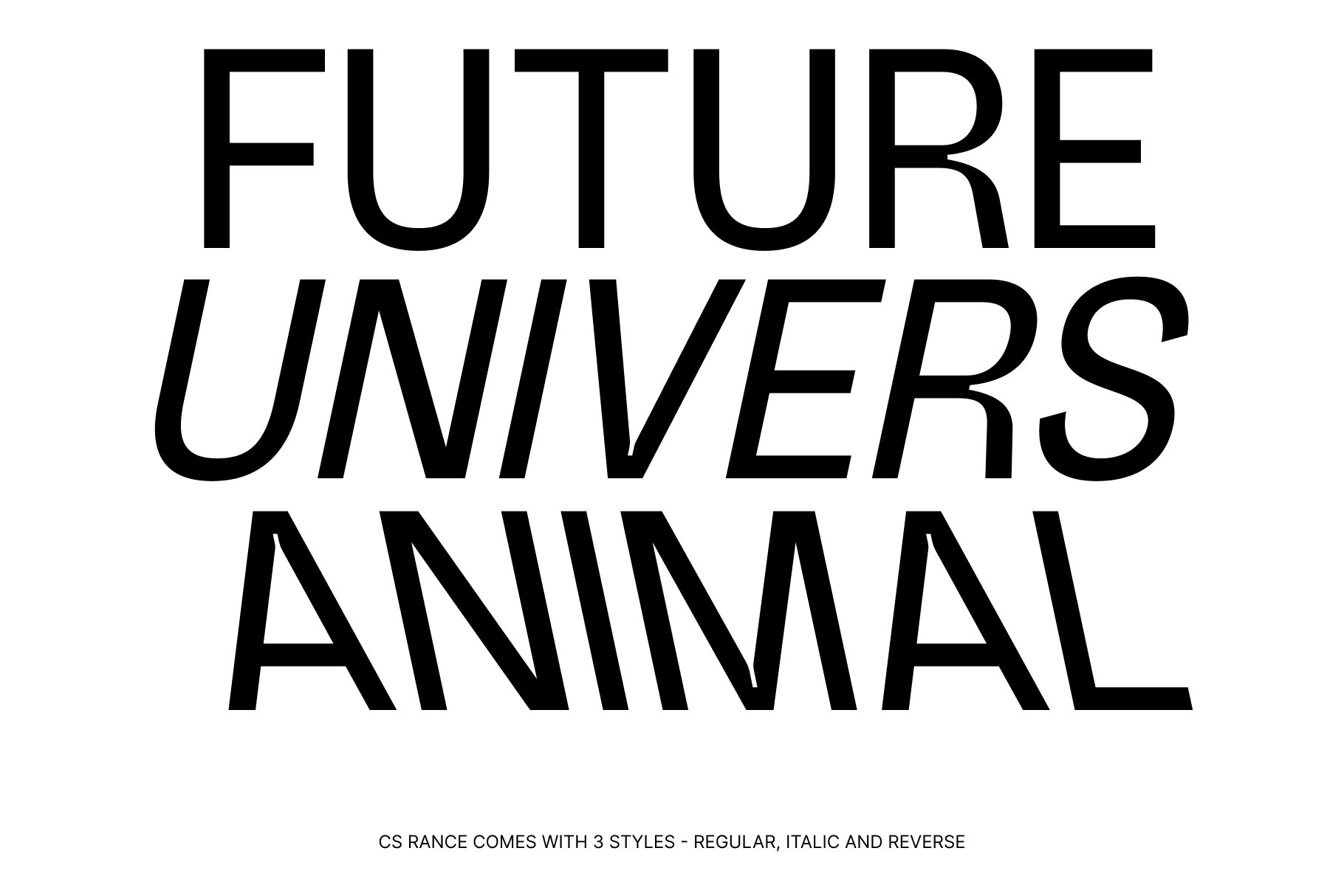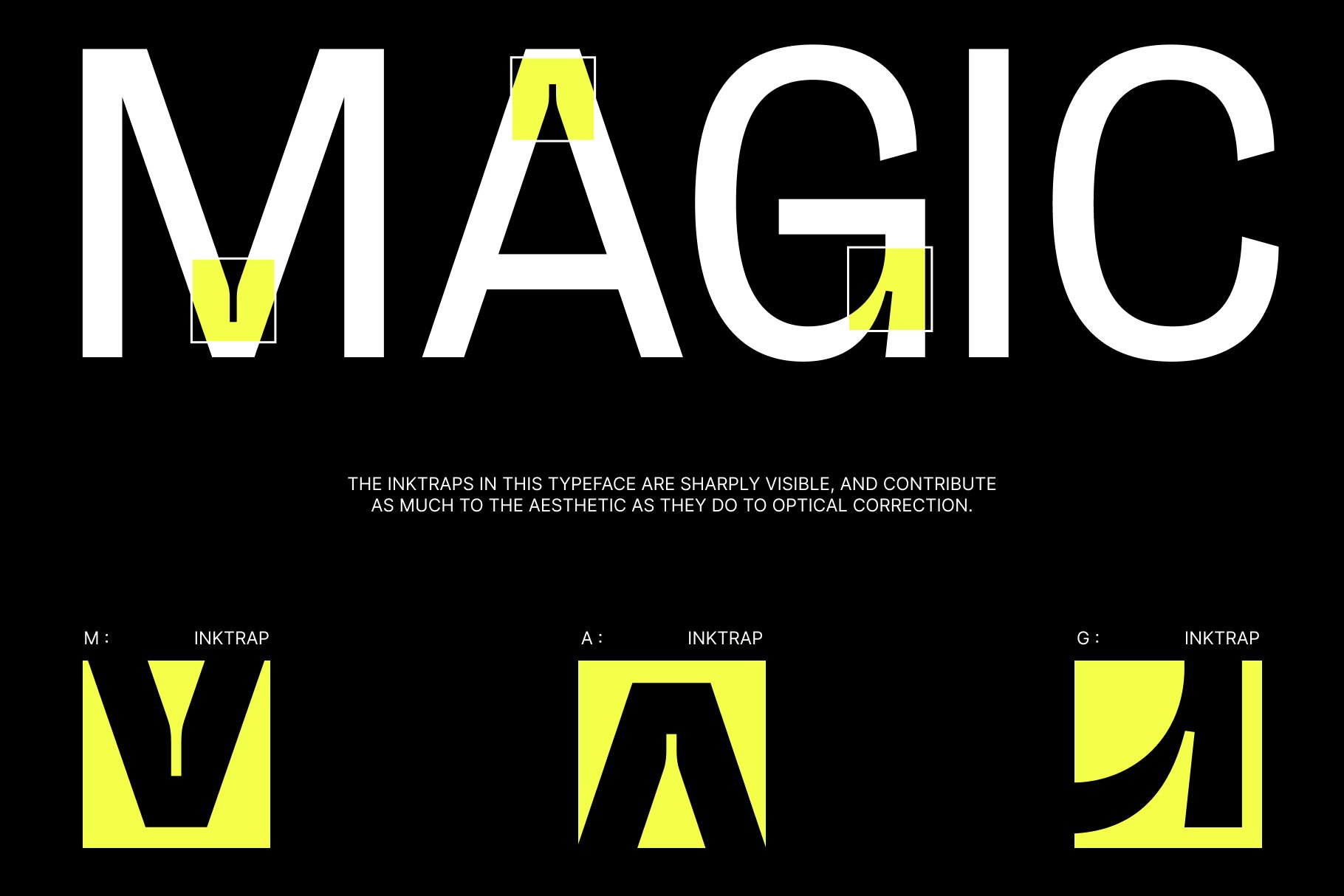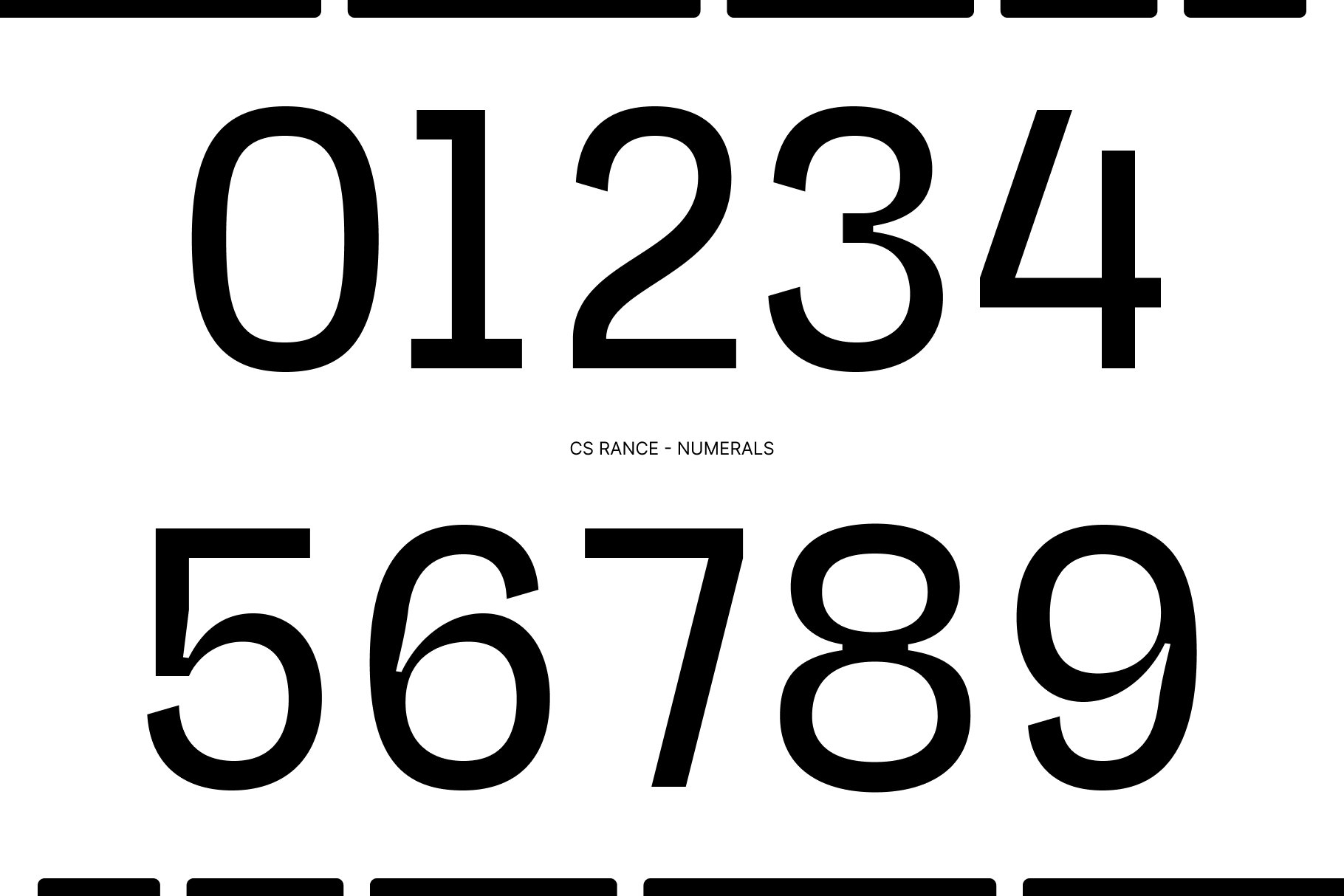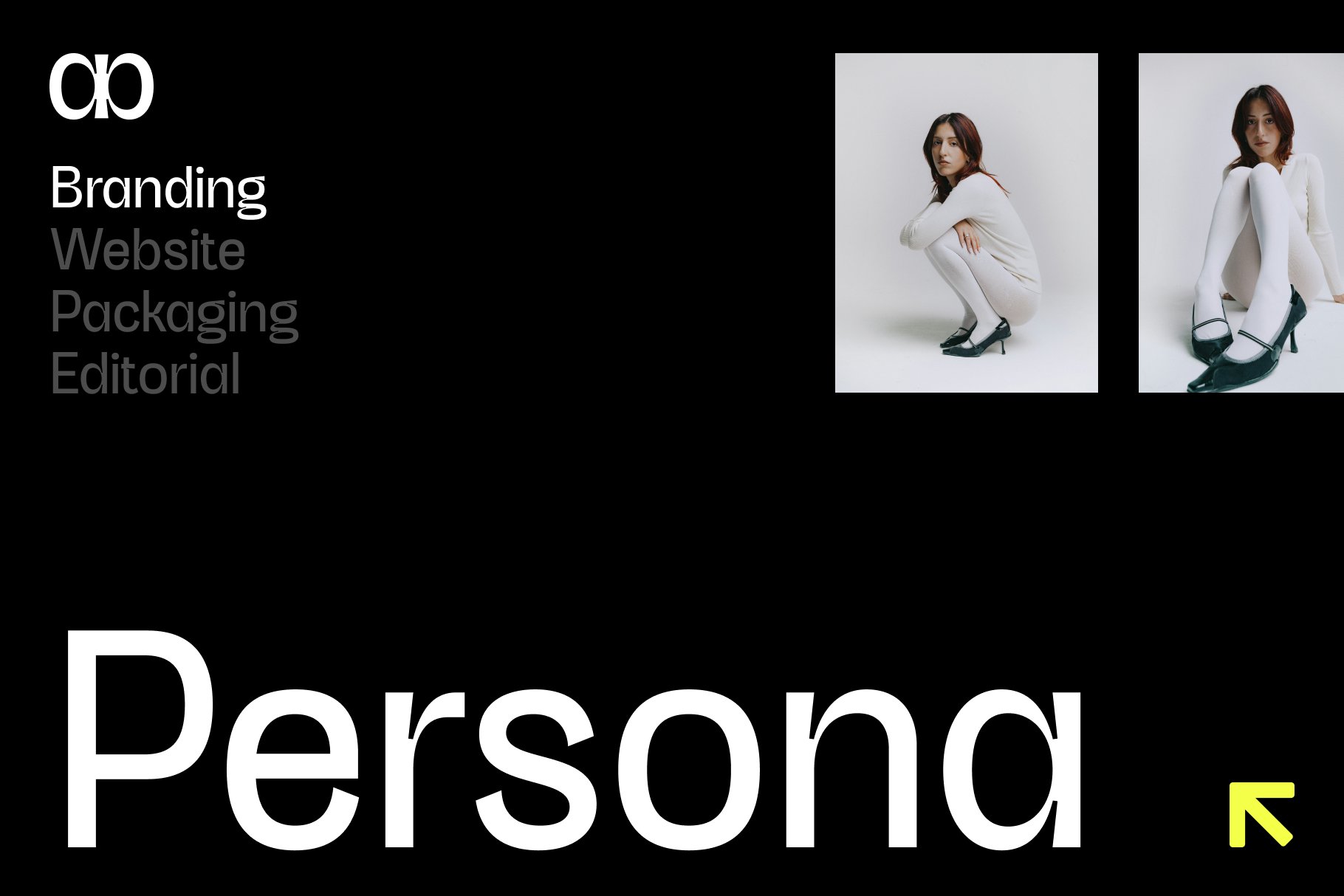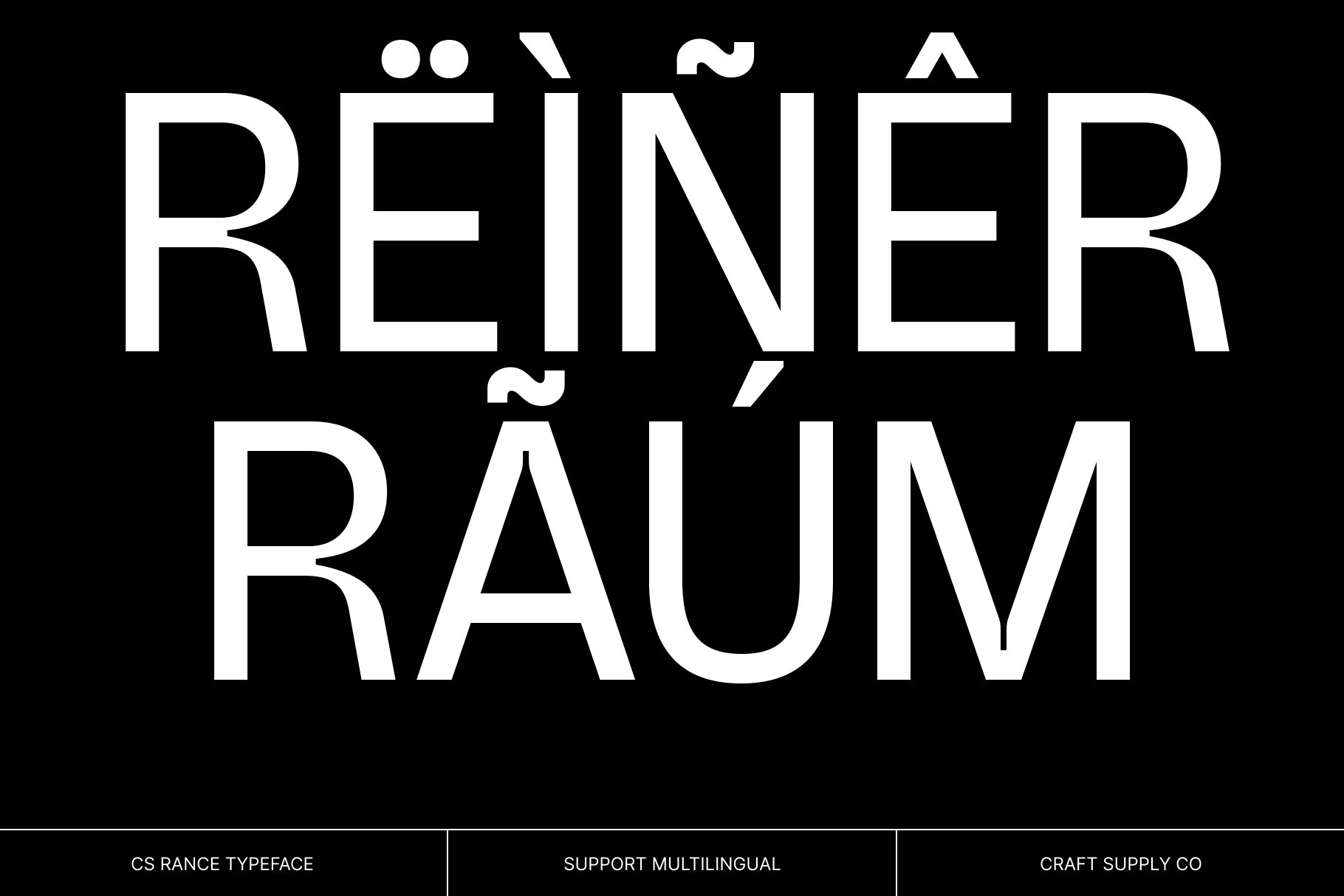
CS Rance – Modern Sans Serif with Functional Inktrap Precision
Modern Sans Serif with Contemporary Character
This is a modern sans serif font designed to combine clean contemporary aesthetics with functional typographic detailing. Featuring precise construction and carefully crafted inktrap elements, this typeface delivers a professional and characterful appearance that feels both modern and highly refined. It is ideal for designers who seek typography that balances technical precision with visual personality.
Functional Inktrap Details with Distinctive Appeal
The defining feature of this font lies in its thoughtfully designed inktrap details. Originally inspired by functional typography, these subtle cuts and openings enhance clarity while adding a unique visual character to the letterforms. The result is a font that feels sharp, intelligent, and visually engaging without sacrificing readability.
Clean Structure with Professional Versatility
Built on a foundation of contemporary lines and balanced proportions, this font offers exceptional versatility across a wide range of applications. Its clean geometry and refined details create a polished appearance that works seamlessly in both digital and print environments. This combination of structure and personality gives the font a confident and professional presence.
Perfect for Branding, Editorials, and Creative Projects
From branding systems and editorial layouts to posters, corporate identities, and creative campaigns, this font provides a versatile typographic solution. Its combination of modern sans serif clarity, functional inktrap detailing, and refined contemporary style ensures your designs feel professional, distinctive, and visually compelling.